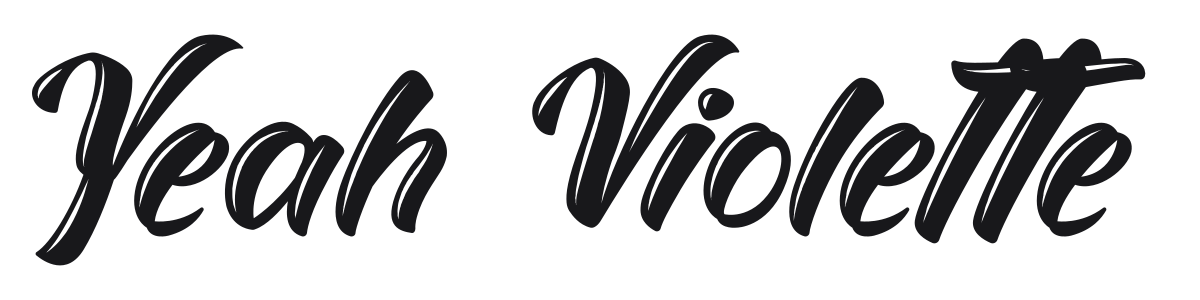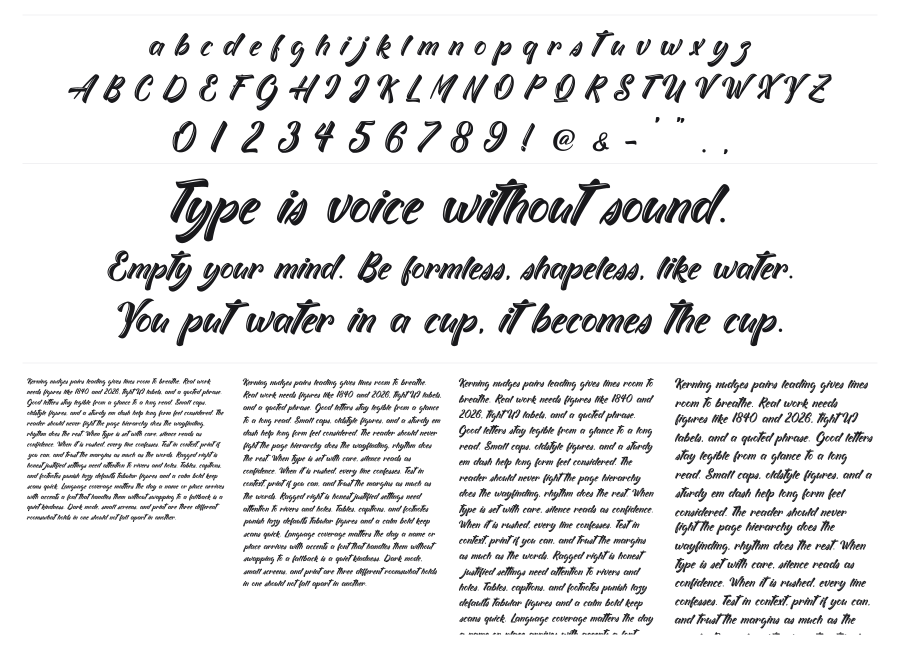
Yeah Violette
Yeah Violette is a bold brush script by Typhoon Type designer Suthi Srisopha, built on the sweeping energy of hand-lettered signage. Thick downstrokes and wispy hairline transitions create strong stroke contrast, while looping connections between letters keep the whole word feeling fluid and spontaneous. It lands well on packaging, social graphics, and anything that needs a handcrafted warmth at large sizes.